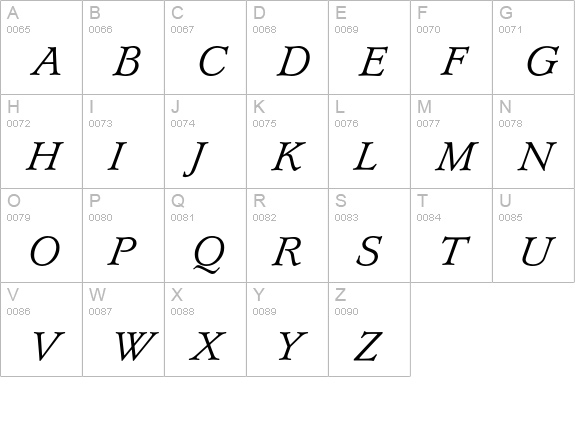
Lynton BQ Light Italic is a refined, elegant, italic variant in the Lynton typeface family \xE2\x80\x94 well suited to elegant body text, refined sub-headings, and luxury branding.
The Lynton BQ Light Italic font exudes elegance and sophistication with its delicate and graceful italic design. Perfect for adding a touch of modernity and style to any project, this font strikes the ideal balance between professionalism and creativity. Its slender yet legible characters make it a versatile choice for a wide range of design applications, from branding to editorial design. What sets Lynton BQ Light Italic apart is not only its aesthetic appeal but also its accessibility - it is available for free download at FontsMarket.com. This means that you can easily incorporate this stunning font into your projects without any barriers. Whether you're working on a personal project or a professional assignment, Lynton BQ Light Italic is a valuable addition to your font library. Download it today and elevate your designs with this exquisite typeface.